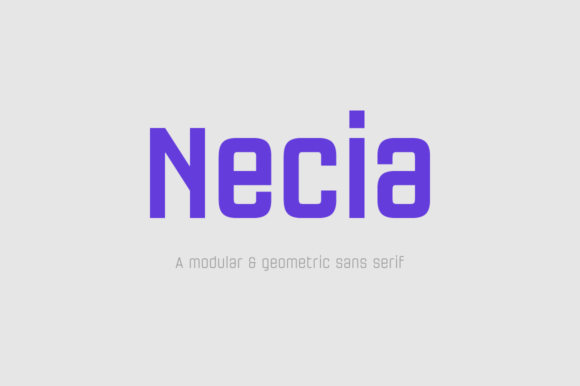
Introducing the Remarkable Neica font family, a contemporary sans serif creation from Graviton Font Foundry masterminded by talented designer, Pablos Balcells. Unveiling in 2014, this font was skillfully envisioned to thrive as a display typeface, yet its commendable clearness grants it versatility in composing texts of varied dimensions.
With its condensed structure, Neica Family Font exudes a captivating aura of elegance, making it an ideal choice for captivating headlines and alluring titles. Its meticulously crafted characters strike a balance between geometric precision and a touch of humanism, ensuring readability even in diminutive point sizes.
Unleash a world of creative possibilities with the Neica Family Font collection, ranging from your website's captivating headlines to the allure of packaging designs. Allow your imagination to flourish with endless customization options, including small caps and an array of alternate characters, ensuring that every project is distinctively yours.
Beyond its aesthetic appeal, Neica Family Font prioritizes readability, rendering your content effortlessly consumable. Engage your audience with crystal clear communication, leaving an imprint that transcends the boundaries of traditional typography.
Embrace the Neica journey and let your typography narrate tales of enthrallment, attracting like-minded individuals who cherish the art of meticulously crafted fonts. Allow Neica's versatility to guide you through diverse design ventures, knowing that each creation will resonate with an audience.
Step into the spotlight with the remarkable Neica Font, a testament to the limitless boundaries of creativity, ensuring that your words captivate and entice.